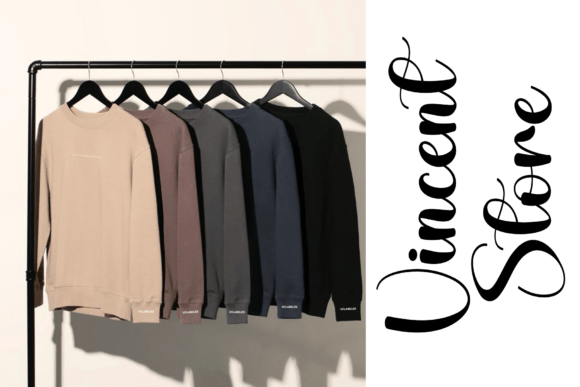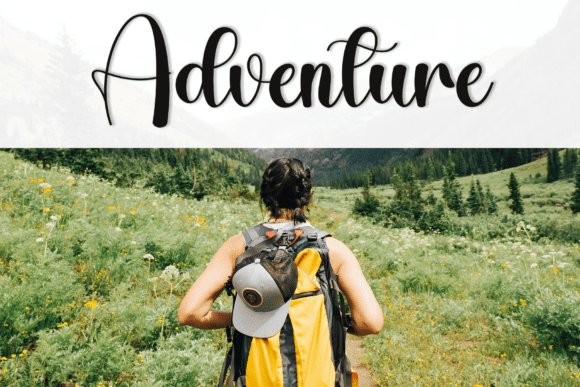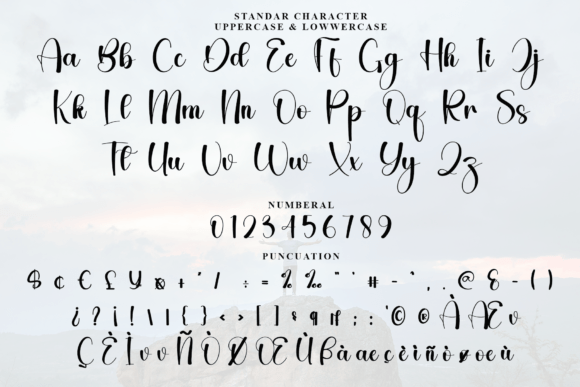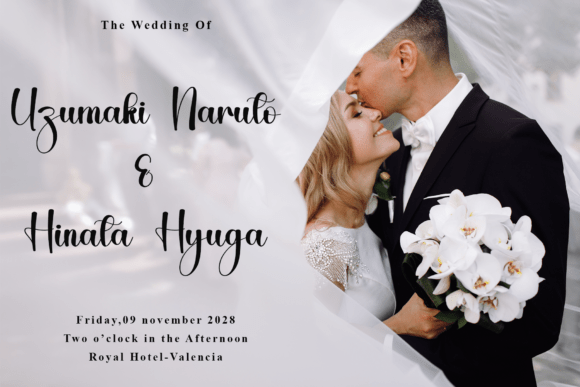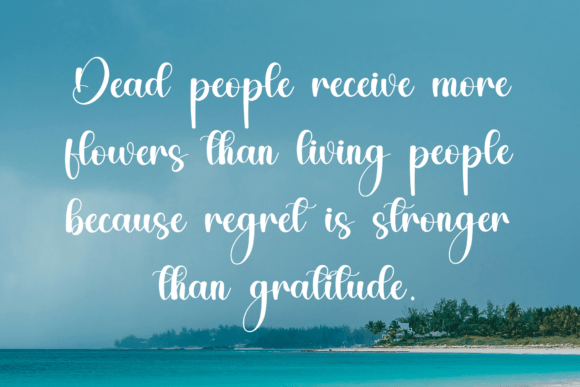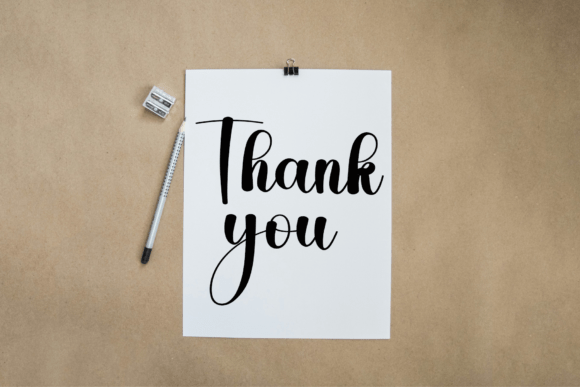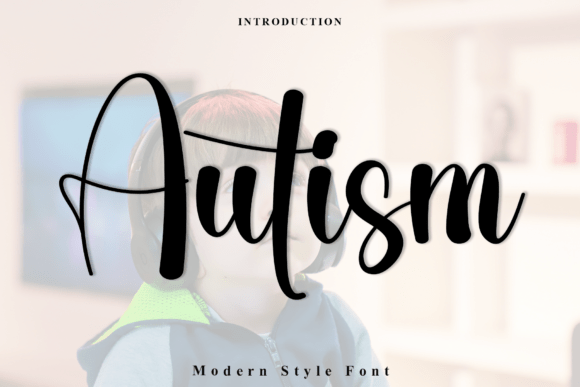
Introducing Autism Font: The Sweet and Cursive Handwritten Font for Your Design Needs
Are you a designer or crafter looking for a unique and elegant font to elevate your design projects? Look no further than Autism Font, a beautiful and gentle handwritten font that is sure to add a touch of joy and romance to your creations. In this article, we’ll explore the features and benefits of Autism Font, and how it can be used to create stunning designs for a variety of applications.
What is Autism Font?
Autism Font is a sweet and cursive handwritten font that is designed to be both elegant and casual. Its gentle curves and flowing lines make it perfect for adding a touch of whimsy and romance to your designs. Whether you’re creating branding materials, logos, wedding invitations, greeting cards, or marketing promotions, Autism Font is the perfect choice.
Key Features of Autism Font
• Handwritten elegance: Autism Font is a carefully crafted handwritten font that mimics the look and feel of traditional penmanship.
• Cursive flow: The font features a smooth, cursive flow that adds a touch of elegance and sophistication to your designs.
• Versatile: Autism Font can be used for a wide range of design applications, from branding and logos to wedding invitations and marketing promotions.
• Easy to read: Despite its elegant and cursive nature, Autism Font is still easy to read, making it perfect for body text and other applications where legibility is important.
Design Applications for Autism Font
Autism Font is a versatile font that can be used for a wide range of design applications. Here are some ideas to get you started:
• Branding and logos: Use Autism Font to create elegant and sophisticated branding materials, including logos, business cards, and letterheads.
• Wedding invitations and stationery: Add a touch of romance and whimsy to your wedding invitations, stationery, and other wedding-related materials with Autism Font.
• Greeting cards: Use Autism Font to create beautiful and heartfelt greeting cards for special occasions, such as birthdays, anniversaries, and holidays.
• Fashion and lookbooks: Autism Font is perfect for fashion designers and stylists looking to add a touch of elegance and sophistication to their lookbooks and marketing materials.
• Marketing promotions: Use Autism Font to create eye-catching and effective marketing promotions, including flyers, brochures, and social media graphics.
Why Choose Autism Font?
So why choose Autism Font for your design needs? Here are just a few reasons:
• Unique and elegant: Autism Font is a unique and elegant font that will set your designs apart from the crowd.
• Highly versatile: Autism Font can be used for a wide range of design applications, making it a great addition to any designer’s toolkit.
In conclusion, Autism Font is a beautiful and elegant handwritten font that is perfect for designers and crafters looking to add a touch of whimsy and romance to their designs. With its cursive flow, elegant curves, and versatility, Autism Font is the perfect choice for a wide range of design applications. Whether you’re creating branding materials, logos, wedding invitations, or marketing promotions, Autism Font is sure to elevate your designs and help you stand out from the crowd.